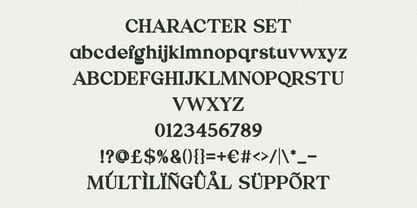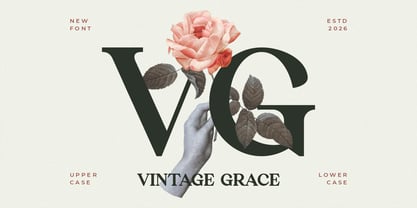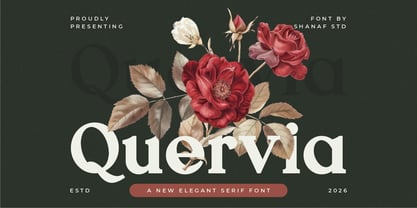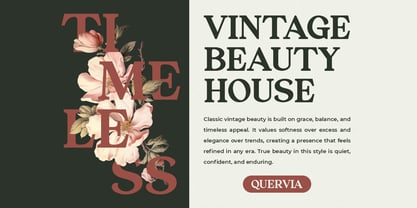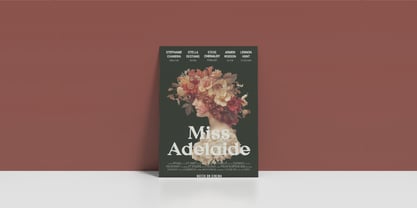
Quervia
La familia tipográfica Quervia fue diseñada por Yesie Erma Yunita y publicada por Shanaf. Quervia contiene 2 estilos y opciones de paquete familiar. Más información sobre esta familia
Quervia Elegant Serif Font blends refined classic structure with graceful vintage charm. The letterforms show balanced proportions, medium contrast strokes, and sharp serif terminals that create a polished presence. Curves feel smooth and controlled, while stems stay firm and confident. Several characters feature stylish inner cuts and distinctive transitions that add personality without losing readability. The overall style feels elegant, timeless, upscale, and editorial. Quervia Elegant Serif Font suits branding that needs prestige and trust. It works beautifully for perfume labels, jewelry brands, skincare packaging, wedding studios, cafés, hotels, floral businesses, and premium product identities. Use it for logos, monograms, titles, signage, and packaging that require classic impact with modern clarity.
This serif font performs strongly in posters, magazine covers, book titles, invitation cards, film titles, menus, and advertising layouts. Uppercase letters deliver bold authority, while lowercase text keeps a refined rhythm for short copy. Its spacing supports clean compositions and luxurious layouts. The sculpted serifs give words a memorable silhouette in both large and medium sizes. This style fits themes such as heritage brands, romantic events, beauty campaigns, vintage boutiques, luxury interiors, and elegant seasonal promotions. It also suits greeting cards, labels, product tags, social media headers, and storefront branding. Designers can build sophisticated visuals that feel graceful, stable, and enduring across many industries.